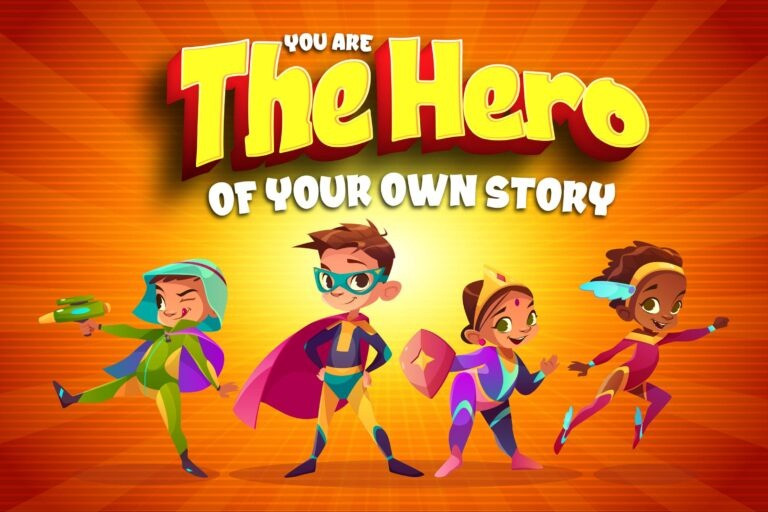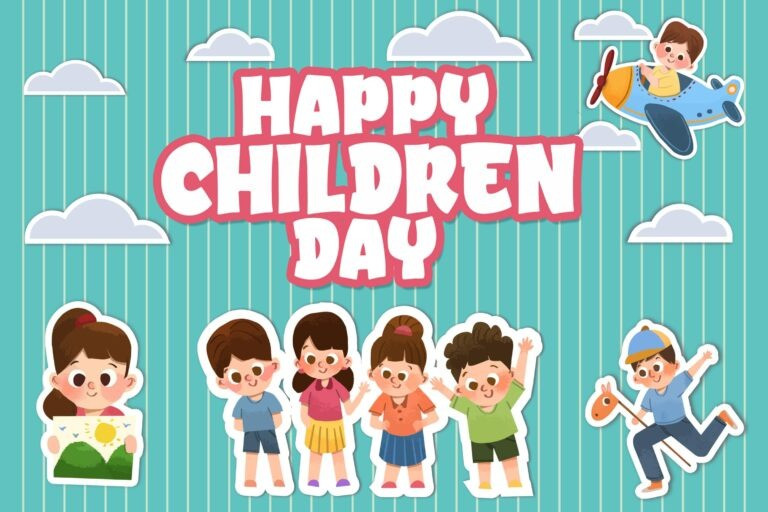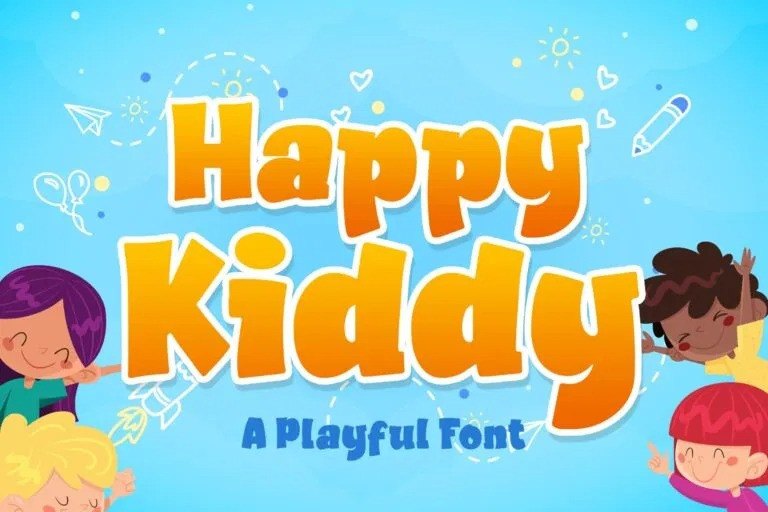
Happy Kiddy Display Font
Introducing of our new product the name is Happy Kiddy a Playful Font. Happy Kiddy inspired by kids style with a fun theme very good for children book, kids poster, flyer, craft etc